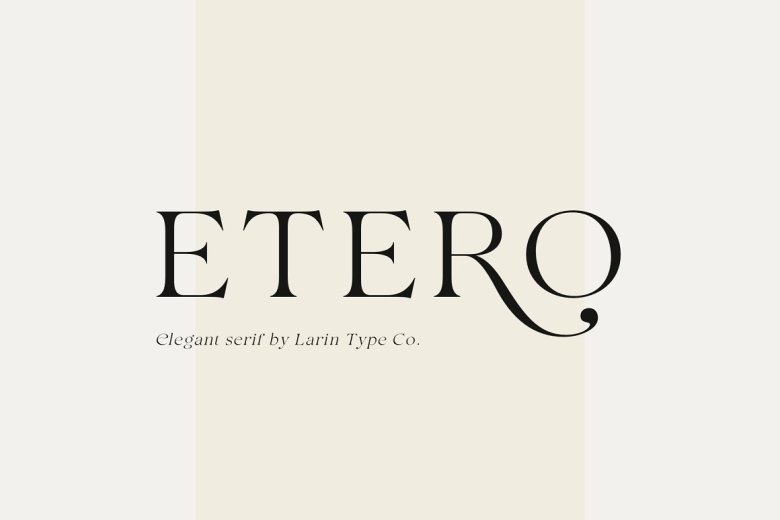
Etero Font
Etero is a modern sans serif font with simple form and reduced height aspects. This font is in the same name it has comes with a light weight to make attractive logos, branding, headlines demo, business card, packaging, titles, and almost any design for which you need a slim serif style for Your font, and much more.Works perfectly with texts that are easy to read and noticeable.
It contains Uppercase and Lowercase with 4 weights; the letters are given alternates if you need more elegant and unique style, and alongside the slanted style will be add dynamics to your design. Is well suited to a wide range of applications & OpenType features are available for every weight!
Etero Serif Font